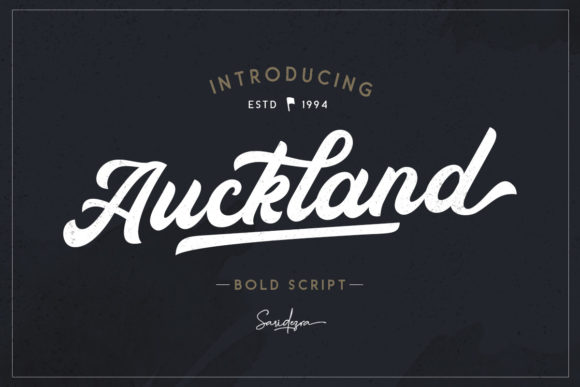
The Power of Auckland Script Font: A Designer’s Best Friend
With its strong, confident look, Auckland Script Font was the perfect solution to my design dilemma. I used it to create a stunning logo that my client loved, and it’s been a go-to font in my design arsenal ever since.
An Honest Review of Auckland Script Font
- ✅ Bold and eye-catching: Auckland Script Font has a strong, confident look that’s perfect for logos, branding, and headlines.
- ✅ Highly versatile: This font can be used for a wide range of design projects, from signage and marketing materials to digital graphics and social media posts.
- ✅ Elegant and sophisticated: Despite its bold look, Auckland Script Font has an elegant, sophisticated feel that’s perfect for high-end brands and designs.
- ⚠️ Limited use for body text: While Auckland Script Font is perfect for headlines and titles, it’s not the best choice for body text due to its bold, cursive style.
- ⚠️ May require adjustments for kerning: As with any script font, you may need to adjust the kerning to ensure that the letters are evenly spaced and look their best.
The Story Behind Auckland Script Font
Auckland Script Font was designed by a talented type designer who wanted to create a bold, eye-catching font that would stand out in any design. Inspired by the vibrant city of Auckland, New Zealand, the font combines modern style with a touch of sophistication and elegance.
Q: What is Auckland Script Font?
A: Auckland Script Font is a bold script font designed for use in logos, branding, and other design projects where a strong, eye-catching look is needed.
Q: What type of designs is Auckland Script Font best suited for?
A: Auckland Script Font is perfect for designs that need a bold, attention-grabbing look, such as logos, signage, and marketing materials.
Q: Can I use Auckland Script Font for body text?
A: While Auckland Script Font is a beautiful font, it’s not the best choice for body text due to its bold, cursive style. It’s better suited for headlines and titles.
Q: Is Auckland Script Font easy to read?
A: Yes, Auckland Script Font is designed to be highly legible, even at smaller font sizes. However, as with any script font, it’s always a good idea to test it in your design to ensure it works well with your specific project.